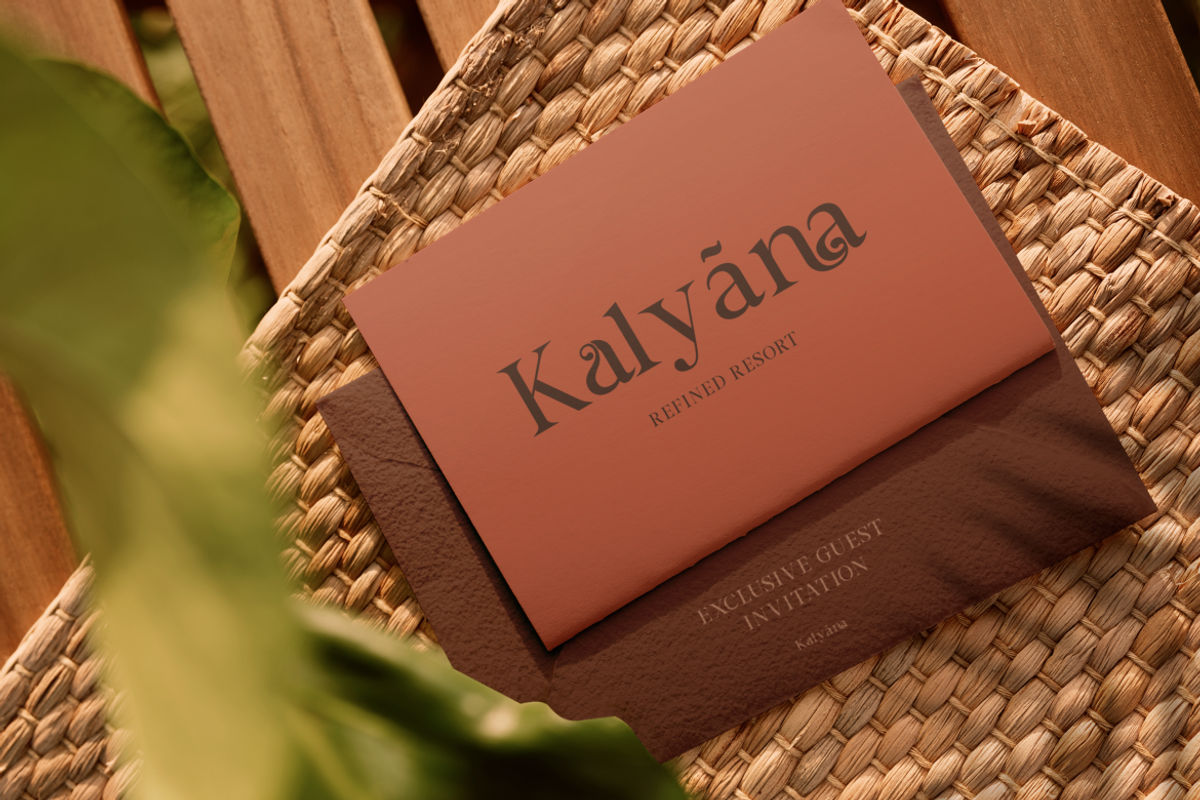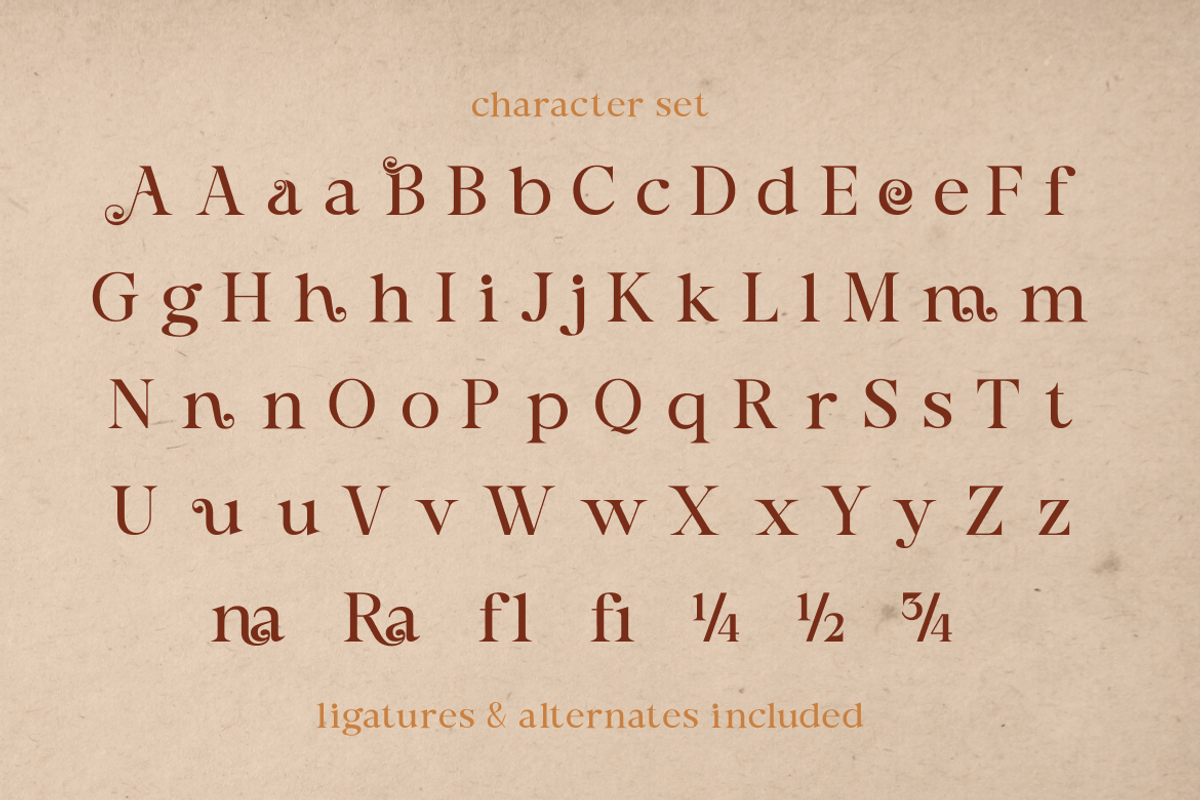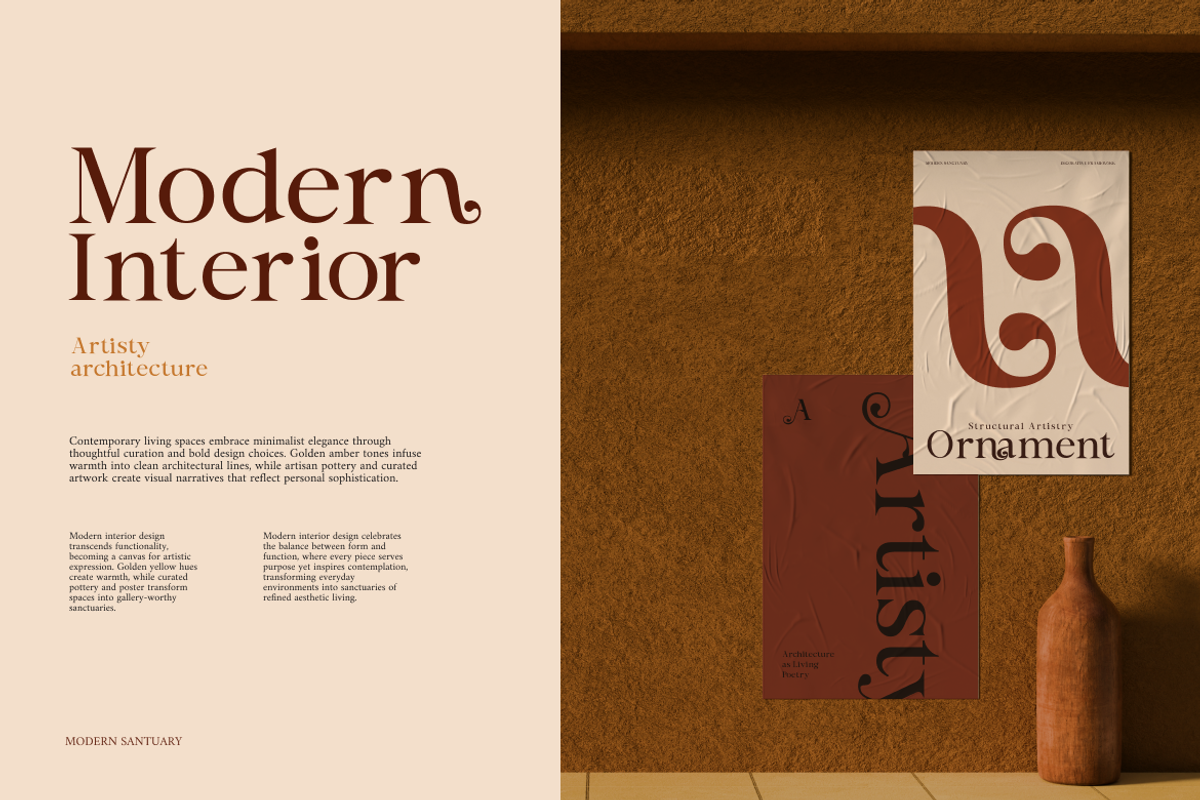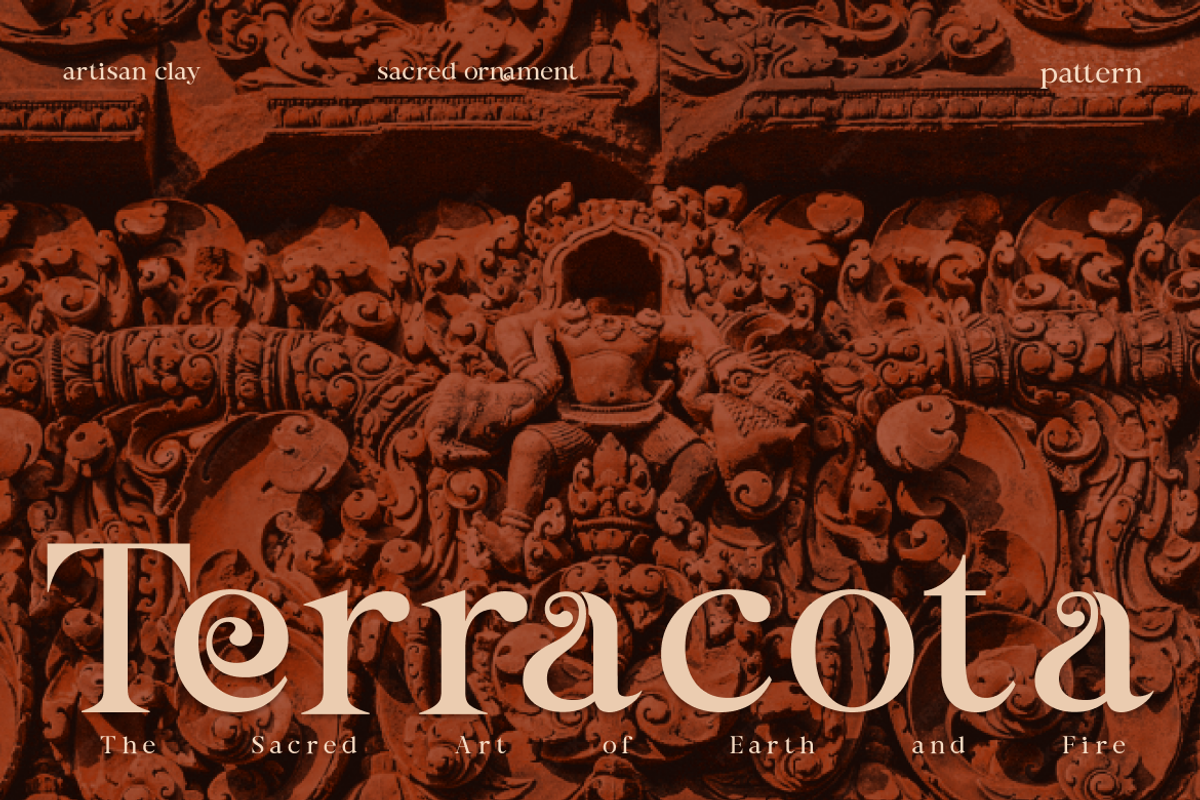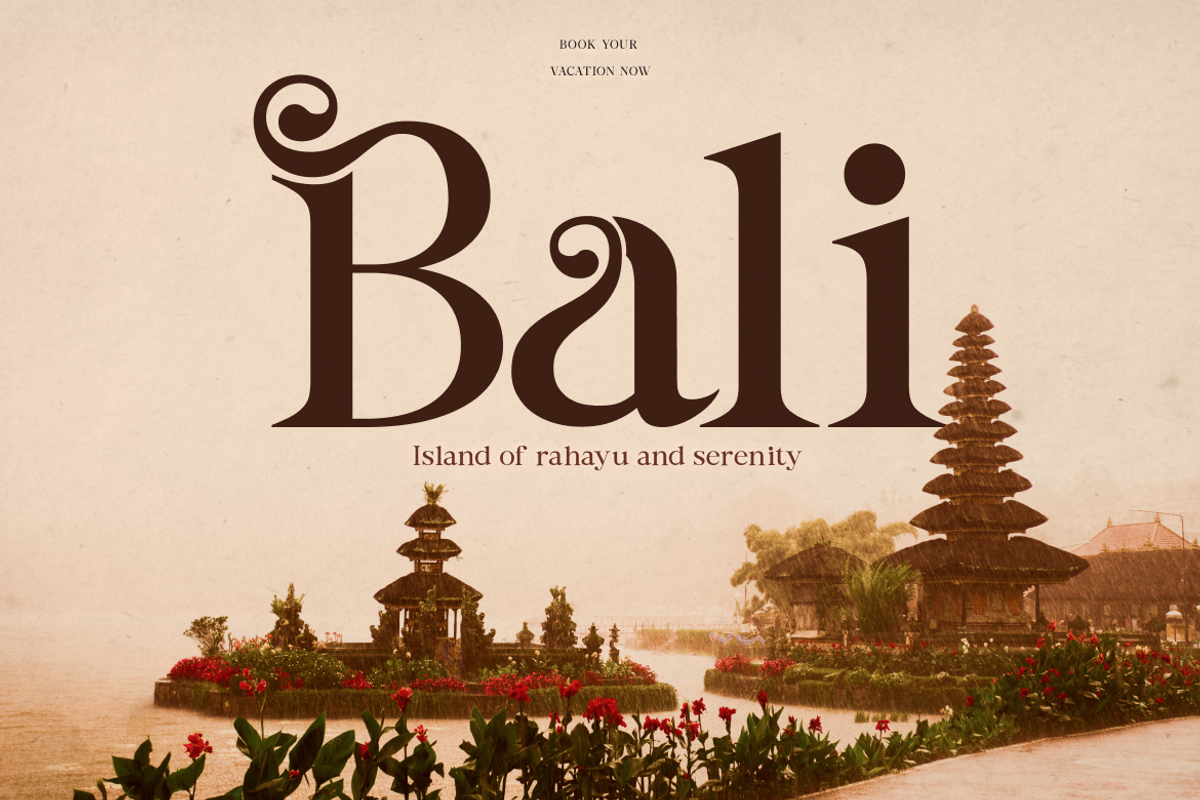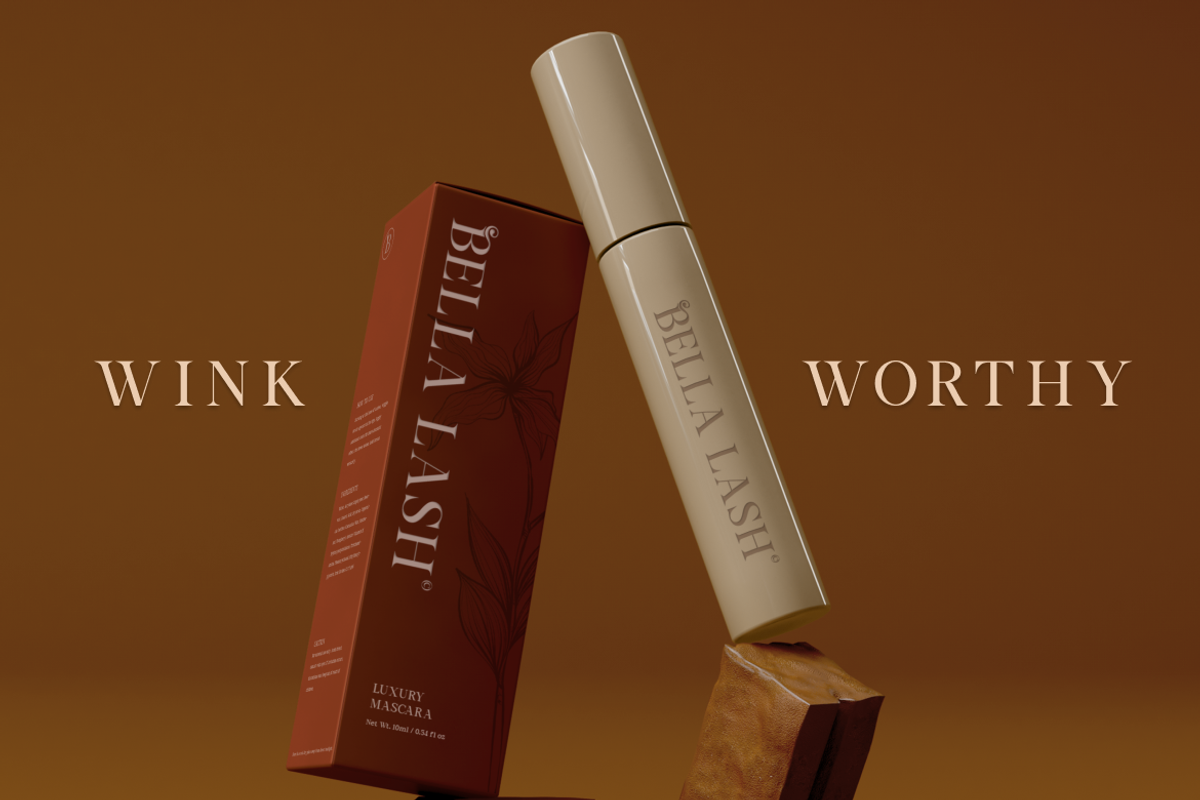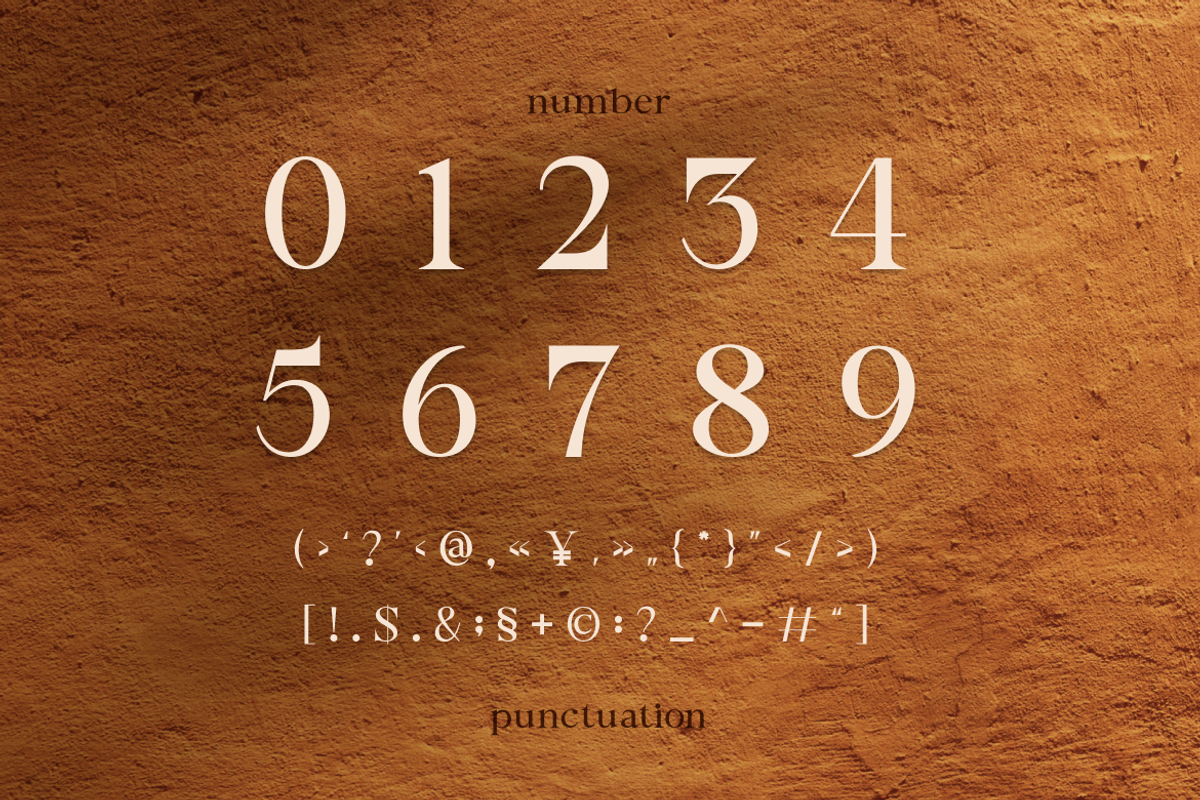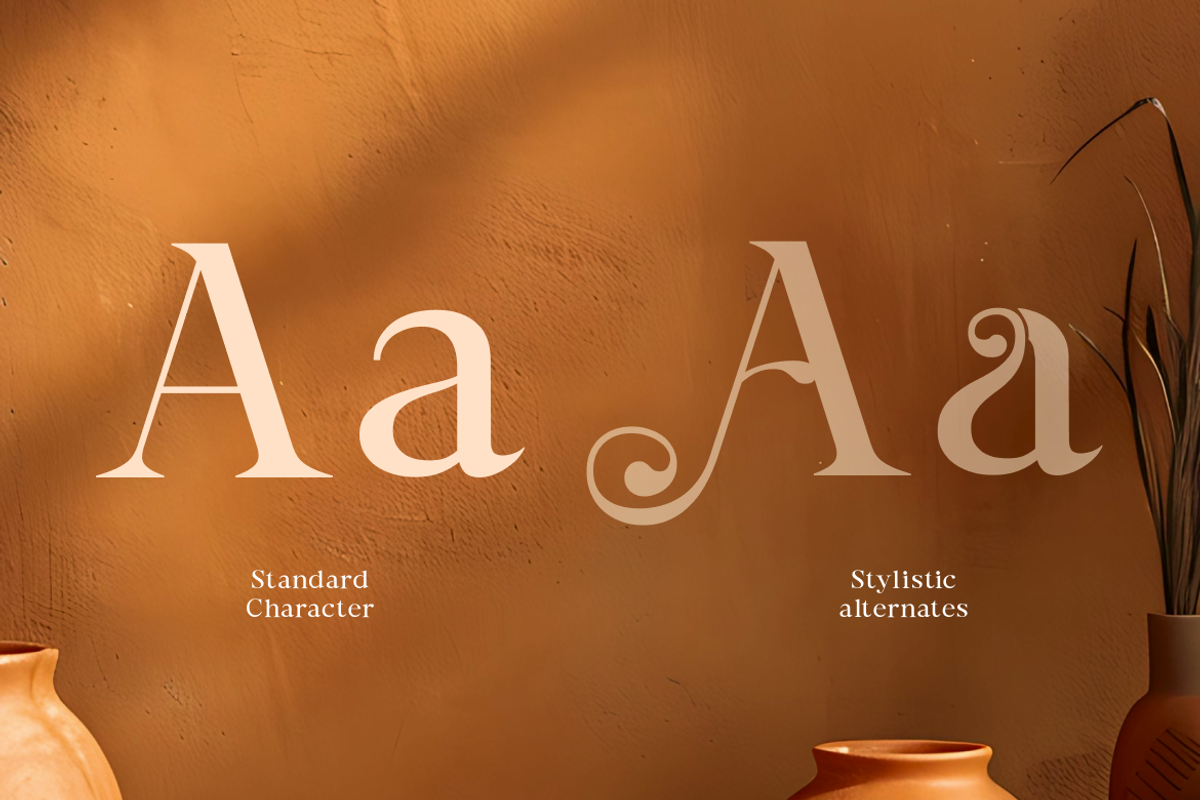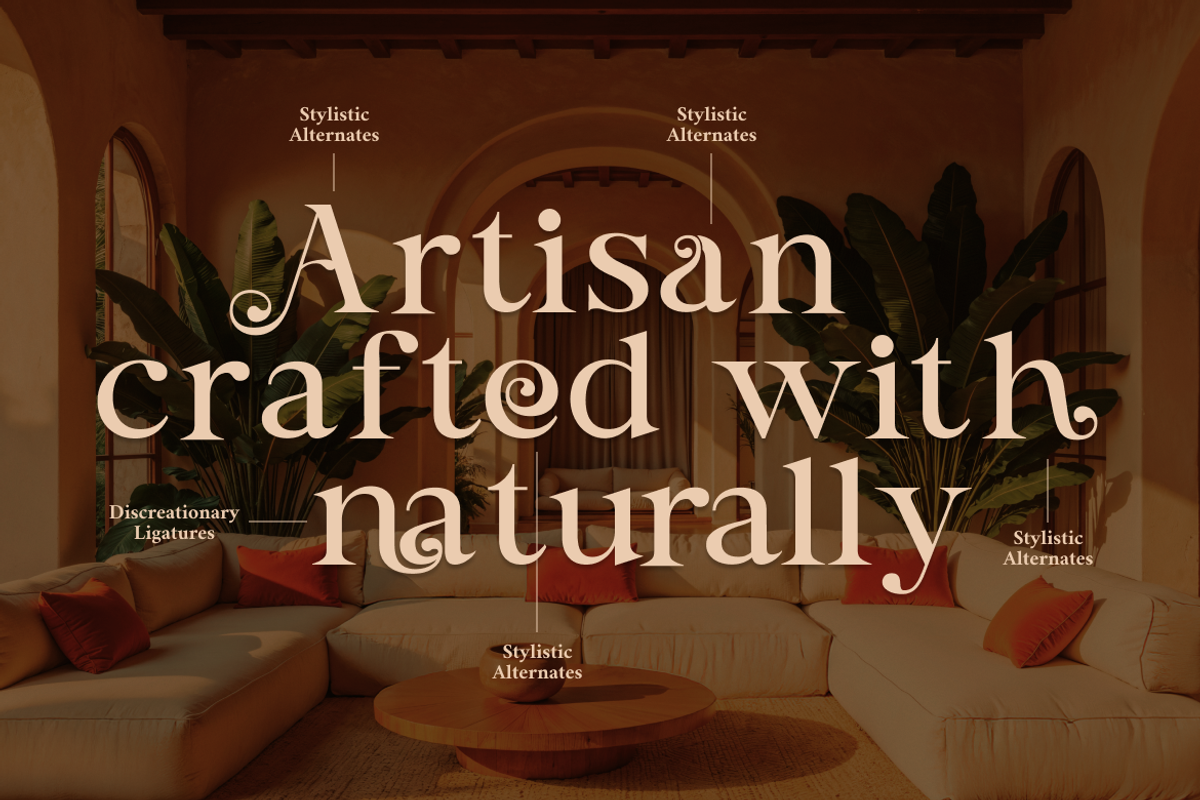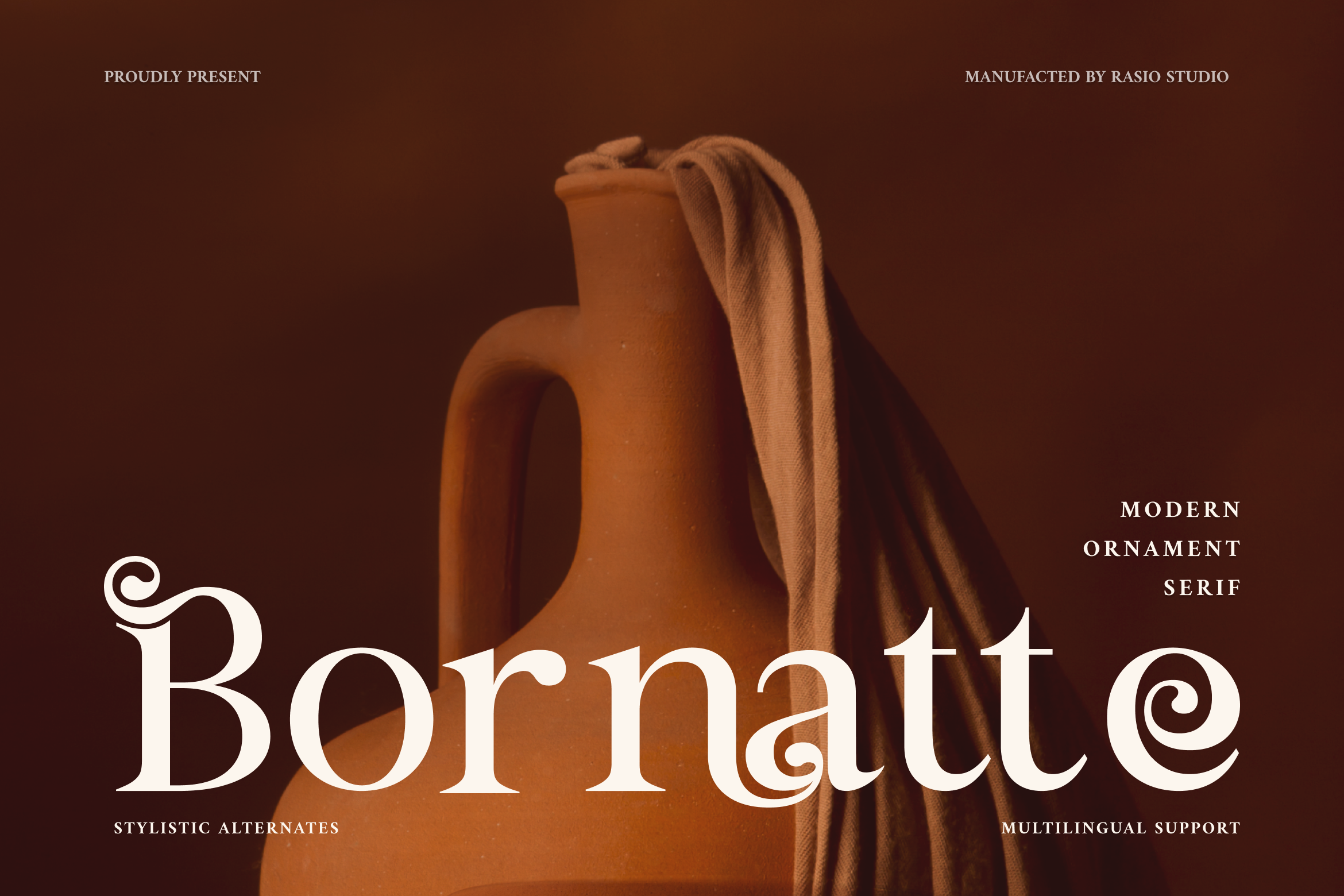
Bornatte Modern Ornament Serif Font
Bornatte is a modern ornament serif font that blends classic elegance with decorative sophistication. Designed with refined serif structures and distinctive ornamental swashes, this typeface brings a luxurious and artistic character to every composition. The letterforms feature stylish curves, unique terminals, and carefully crafted alternates that enhance visual richness while maintaining clarity and balance.
Bornatte is highly relevant for designers seeking a refined serif with decorative personality. It works beautifully for luxury branding, boutique logos, fashion editorials, travel campaigns, hotel branding, beauty packaging, wedding stationery, and premium product labels. The ornamental details and ligatures make it especially powerful for large display settings and sophisticated visual identities.
- Modern ornament serif design with refined decorative detailing
- Distinctive swashes and curled terminals for artistic character
- High-contrast strokes that create a luxurious visual impact
- Elegant serif construction with balanced classical proportions
- Carefully crafted ligatures and stylistic alternates for expressive typography
- Luxury brand identity systems with an artistic and refined tone
- Fashion editorials and high-end magazine covers
- Boutique and premium logo design projects
- Beauty, fragrance, and upscale product packaging
- Travel and hospitality branding with elegant character
Bornatte a modern ornament serif crafted for luxury display